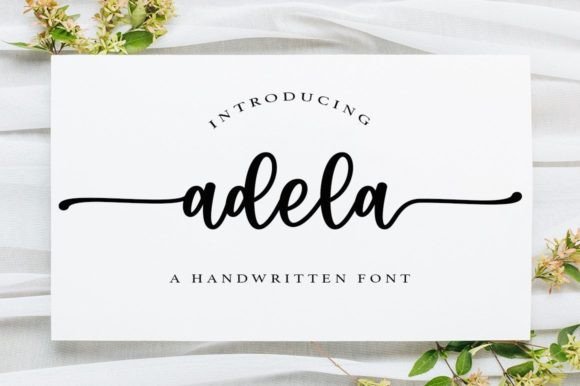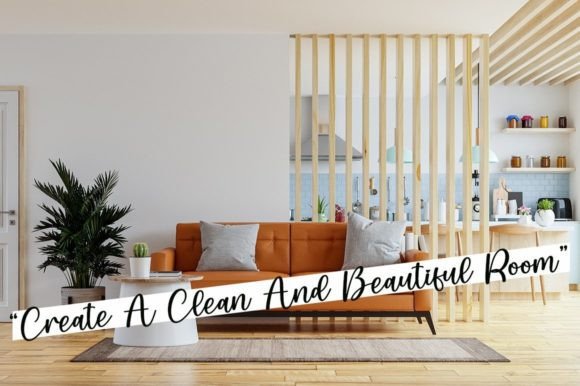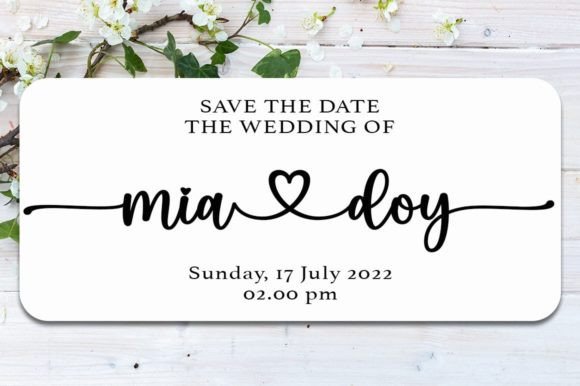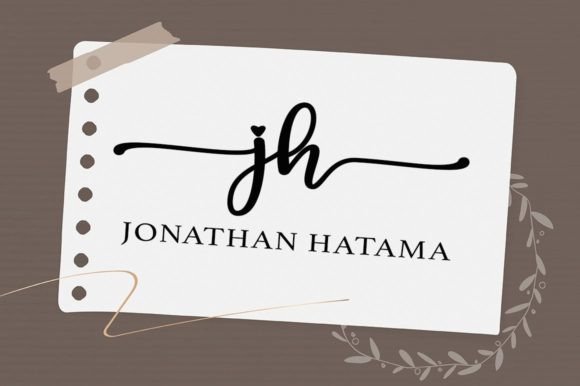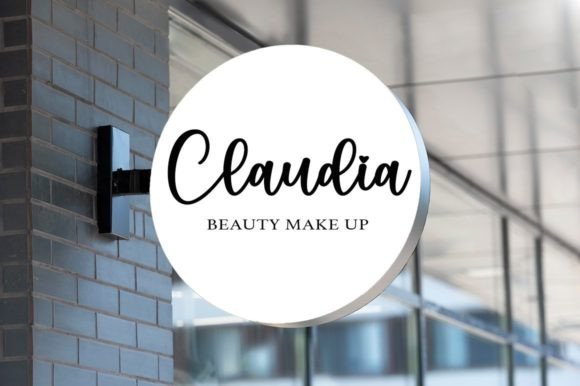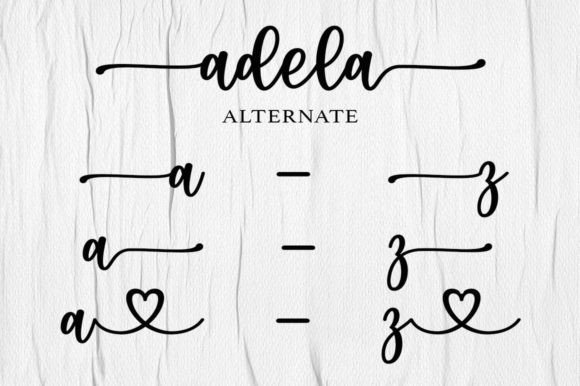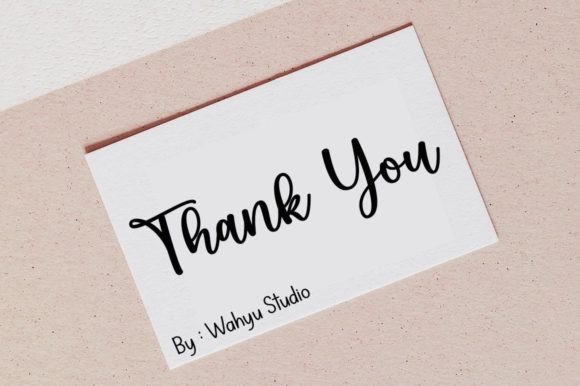
Adela Font
About Adela Font
“Adela” exudes a charming and elegant vibe, making it a perfect choice for various design projects. This versatile font looks stunning on wedding invitations, thank-you cards, quotes, greeting cards, logos, business cards, and any design that requires a handwritten touch.
The charm of “Adela” lies in its ability to convey a sense of elegance and sophistication, enhancing the visual appeal of your text. Its handwritten style adds a personal touch, making it suitable for a wide range of applications where a human connection is desired.
One notable feature is its PUA encoding, allowing easy access to all glyphs and swashes. This feature enhances the font’s flexibility, providing you with the freedom to customize and personalize your designs effortlessly. Whether you’re working on a logo that demands a touch of elegance or crafting a thank-you card that needs a handwritten flourish, “Adela” offers the tools to bring your creative vision to life.
Picture “Adela” gracing wedding invitations, where its charm complements the romantic atmosphere. Envision it on business cards, adding a personalized and elegant touch to your professional branding. Imagine it on quotes, where its handwritten beauty enhances the emotional impact of the words.
In summary, “Adela” is more than just a font; it’s a design asset that combines charm and elegance. Whether you’re creating for print or digital media, let “Adela” be the font that elevates your designs, making them stand out with a touch of sophistication and handwritten beauty.